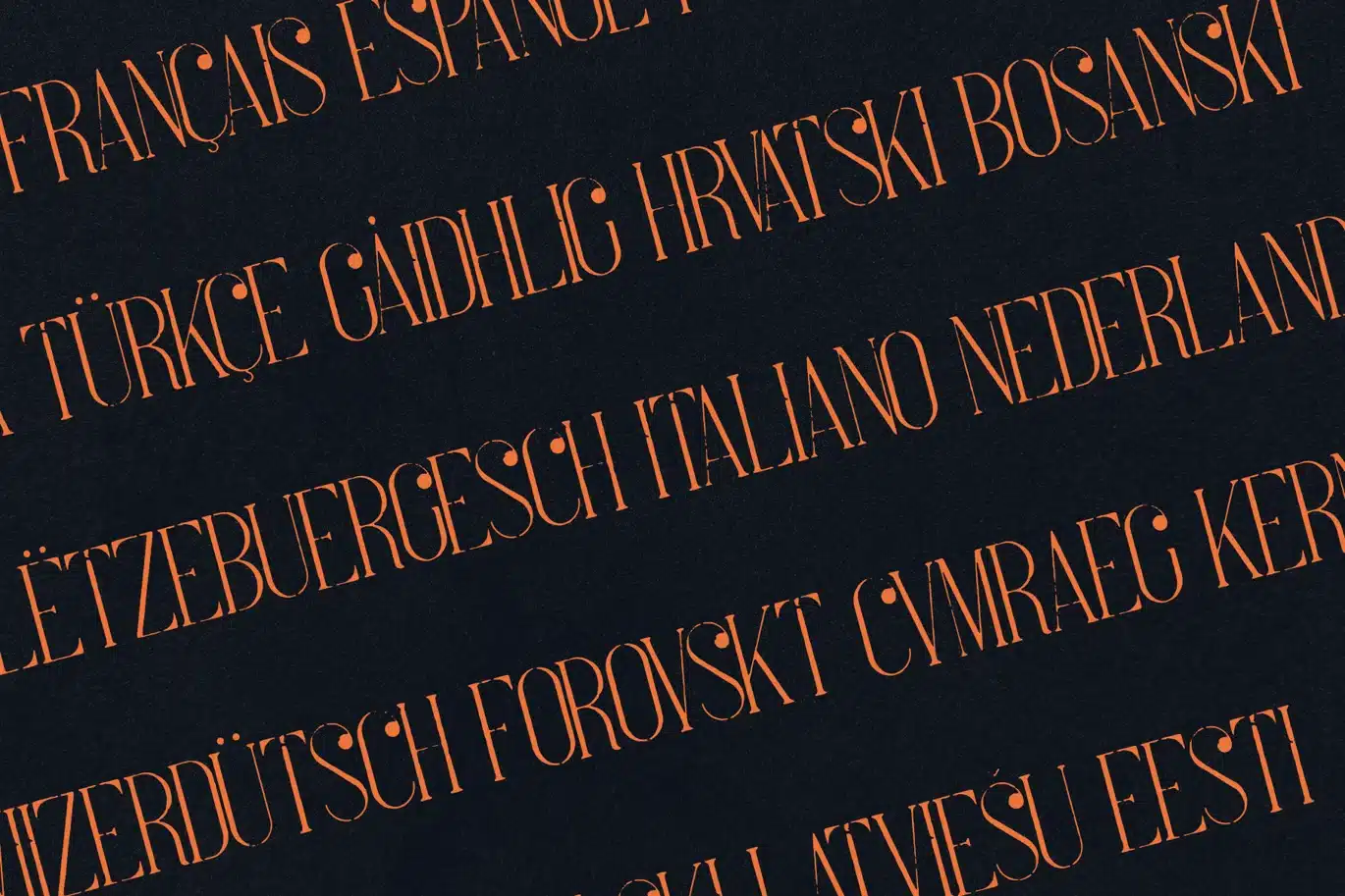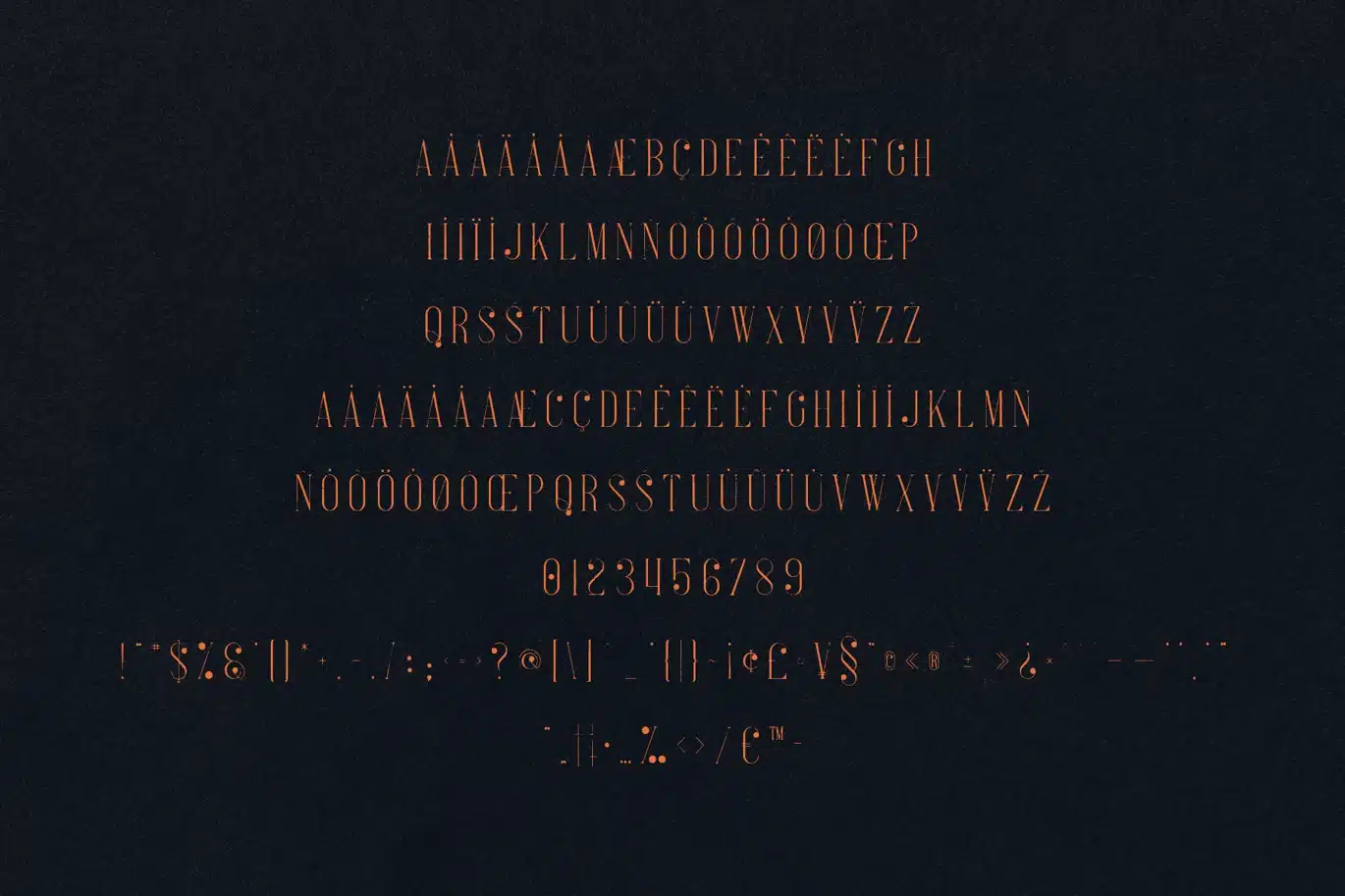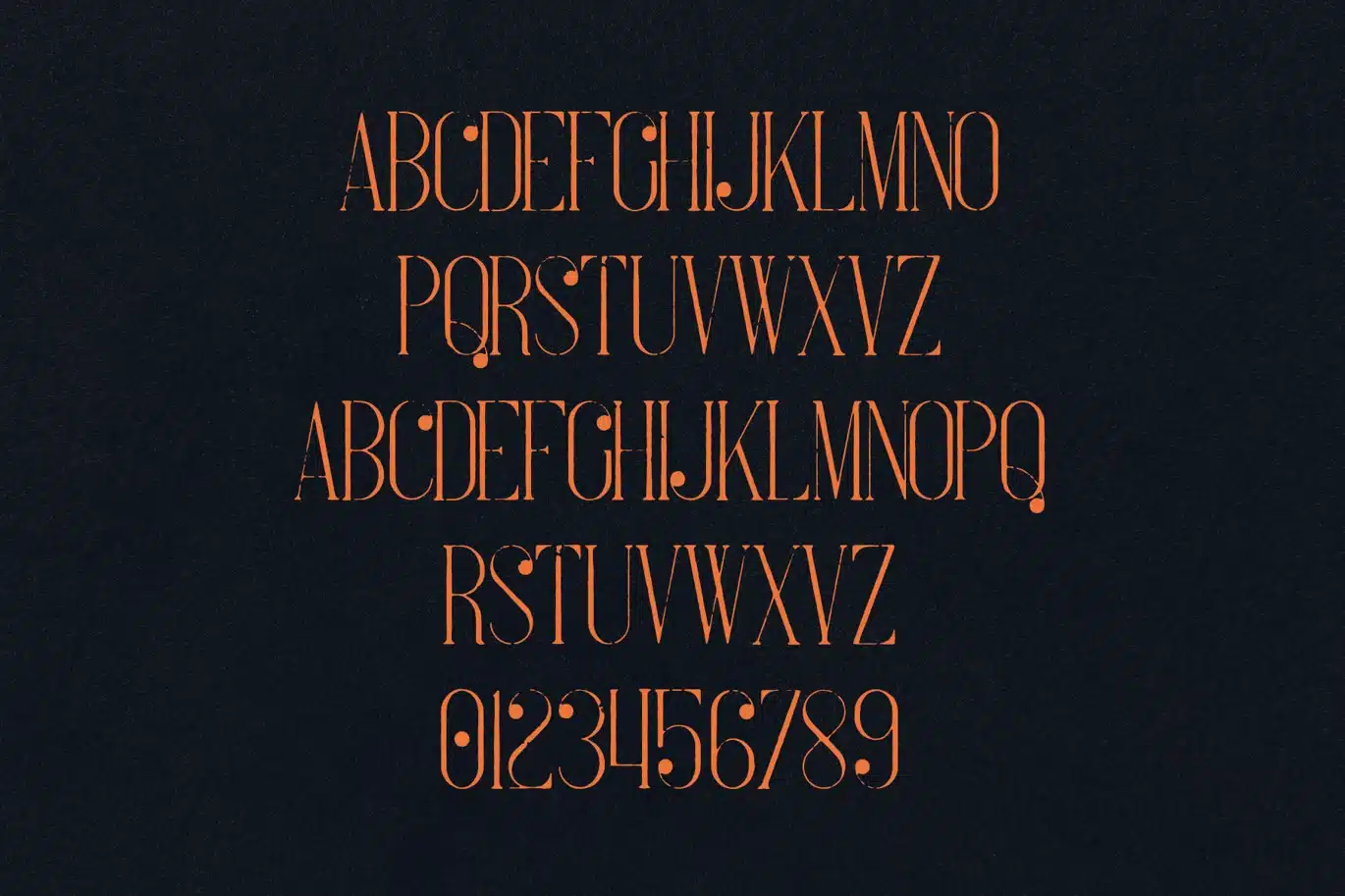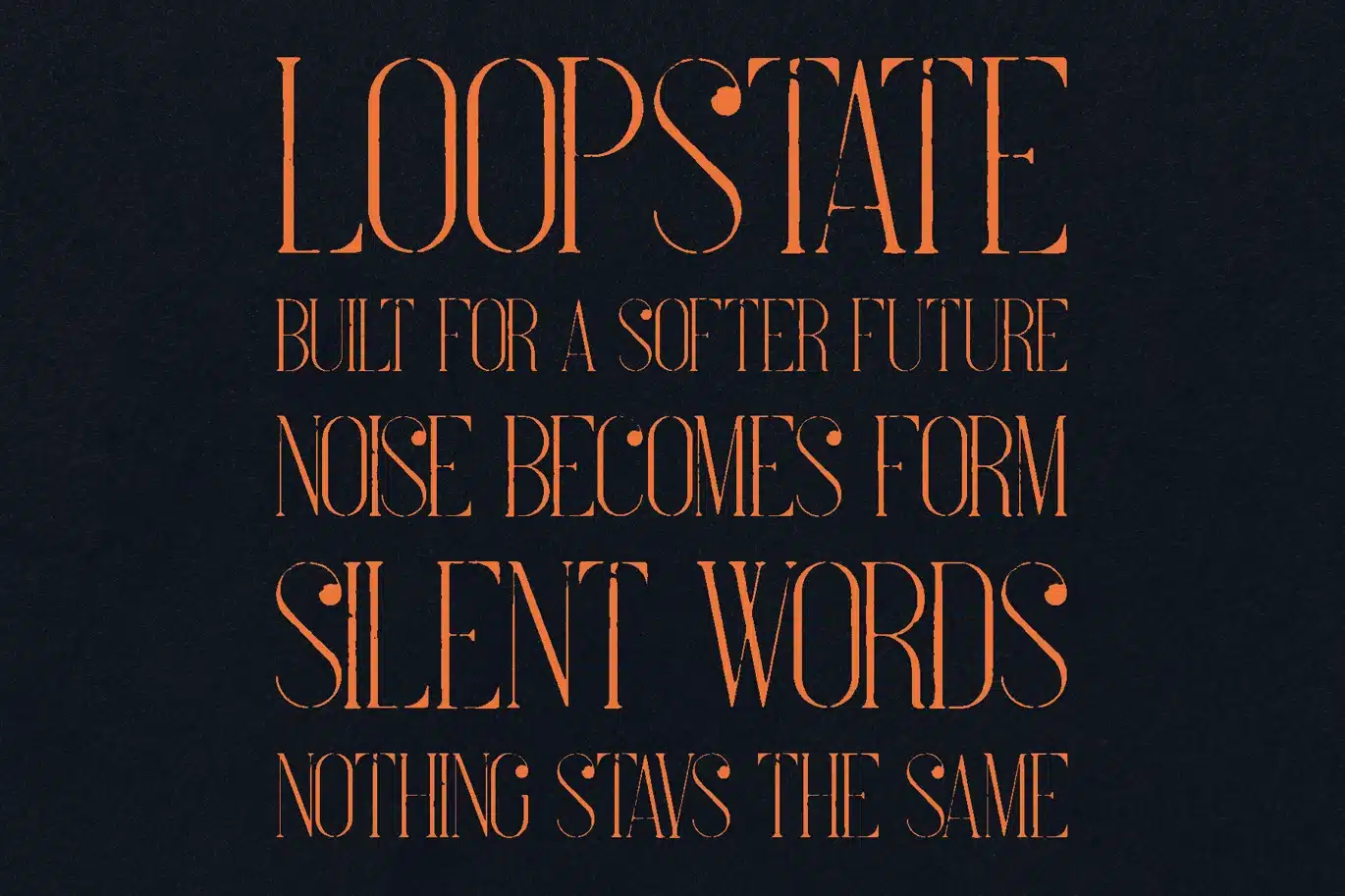
Tacenda Organic Serif – Modern Decorative Display Font
Tacenda is a distinctive organic serif display font that blends elegance with expressive character. Designed with unique letterforms, subtle imperfections, and decorative details, it delivers a refined yet artistic typographic voice.
Inspired by modern editorial design and luxury branding, Tacenda stands out with its sculptural shapes and contemporary serif structure, making it ideal for projects that require sophistication with personality.
Whether used for logos, high-end branding, or striking headlines, Tacenda creates a memorable visual presence with effortless style.
🔤 Features
• Uppercase & lowercase
• Numbers & punctuation
• Multilingual support
• Unique organic serif shapes
• Decorative details
• High-contrast elegant style